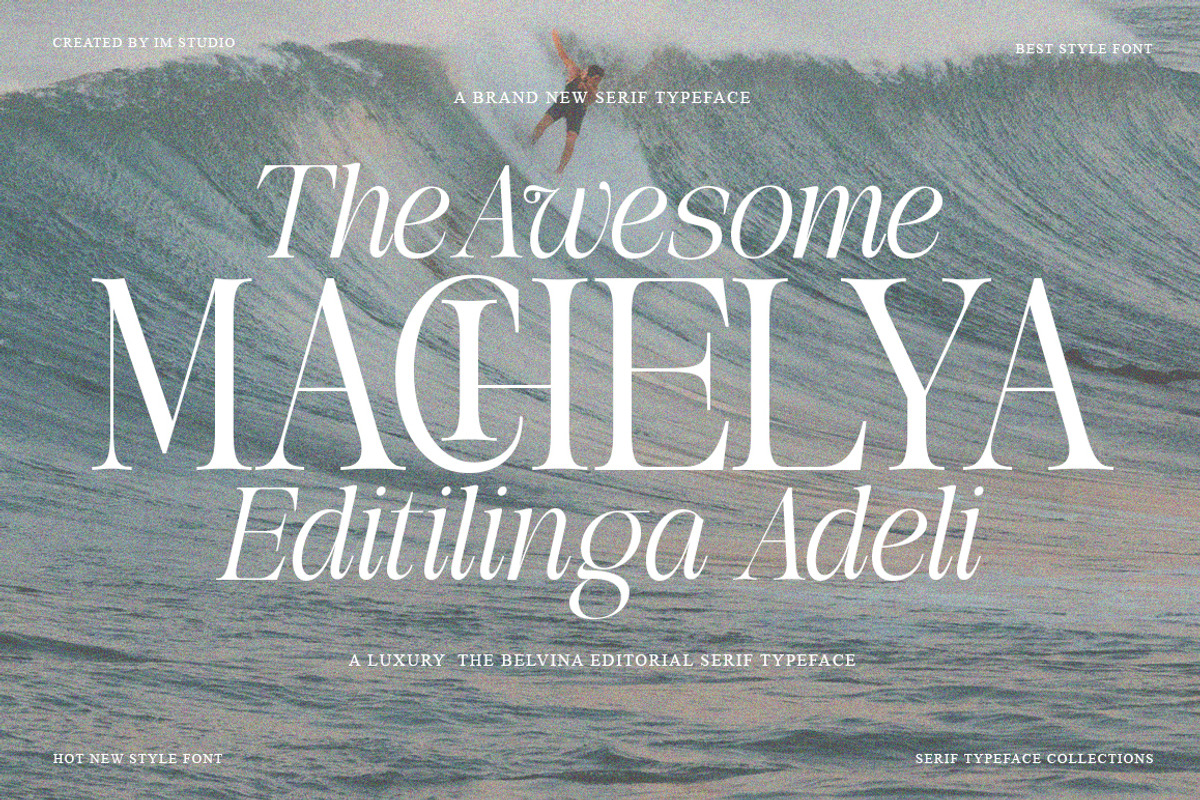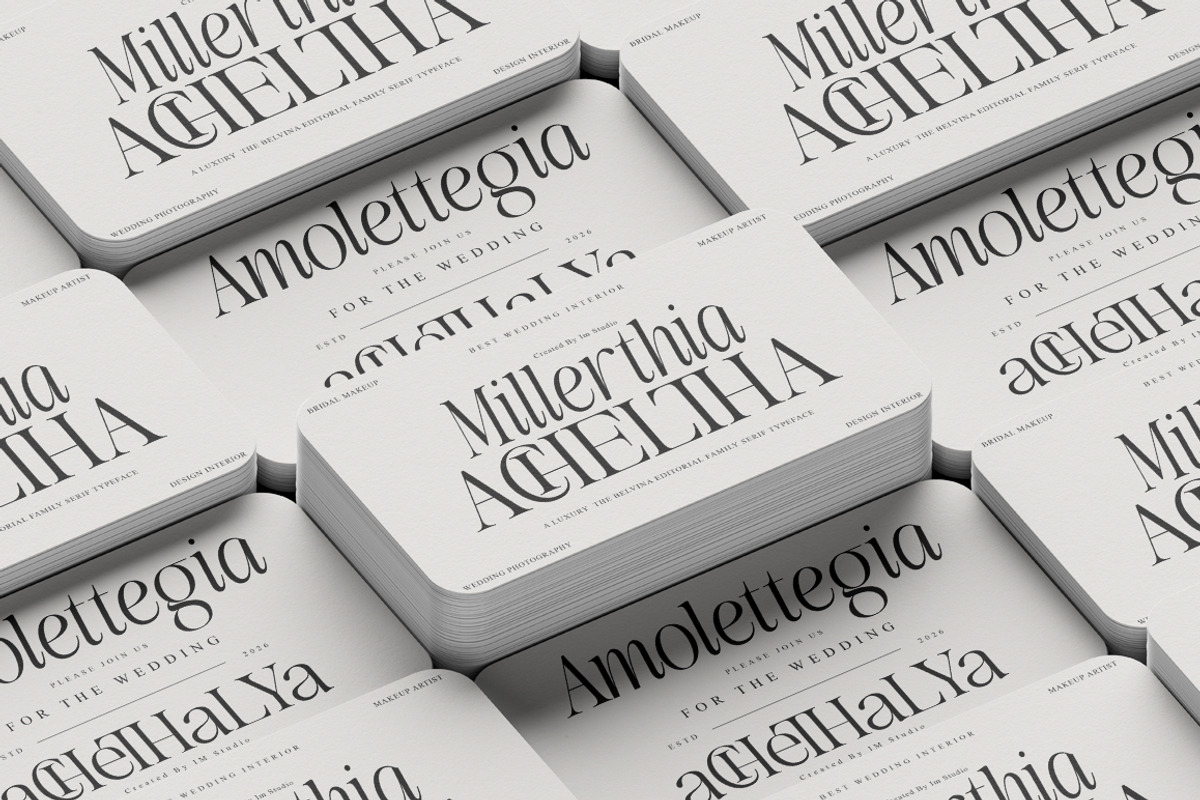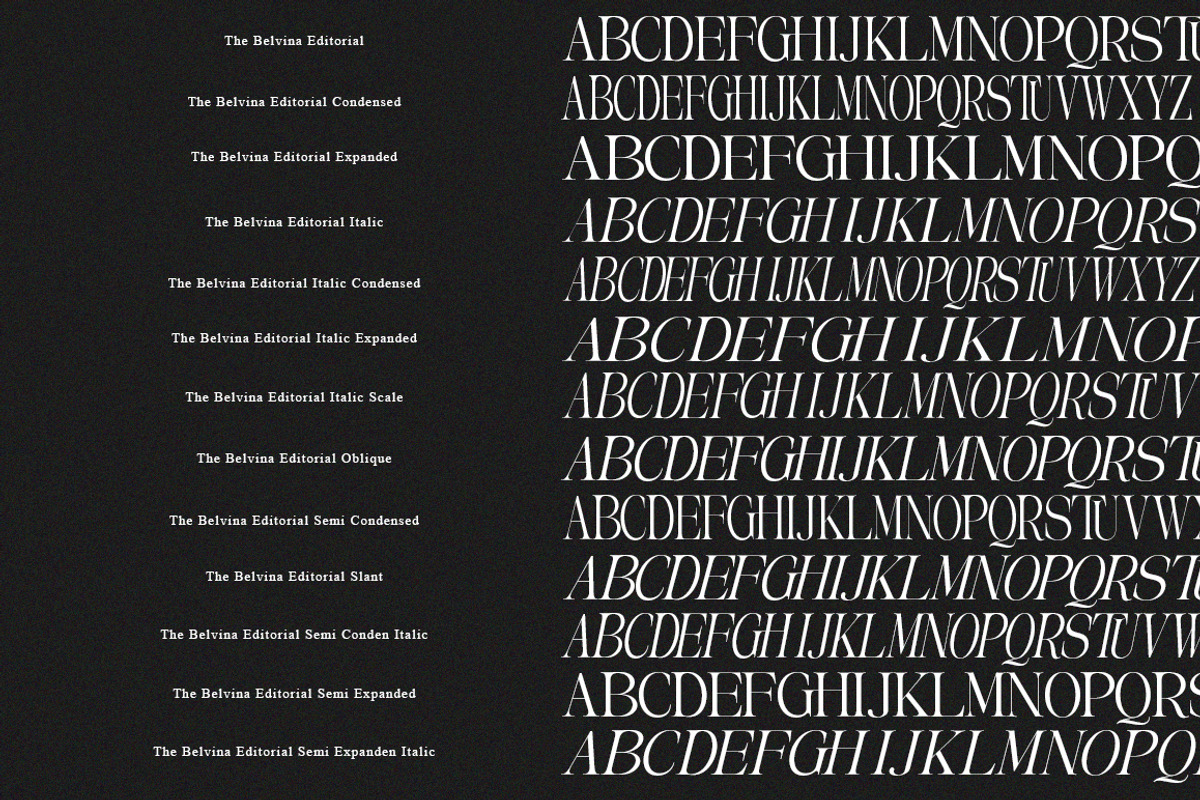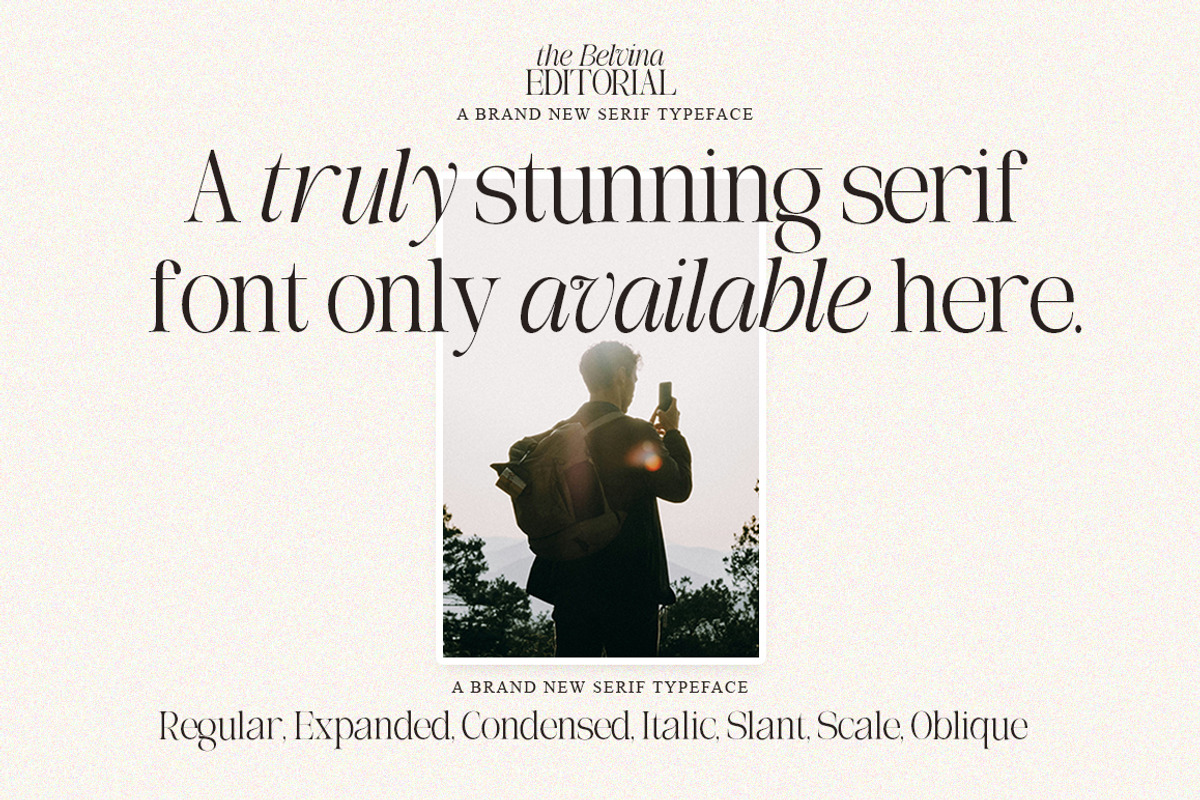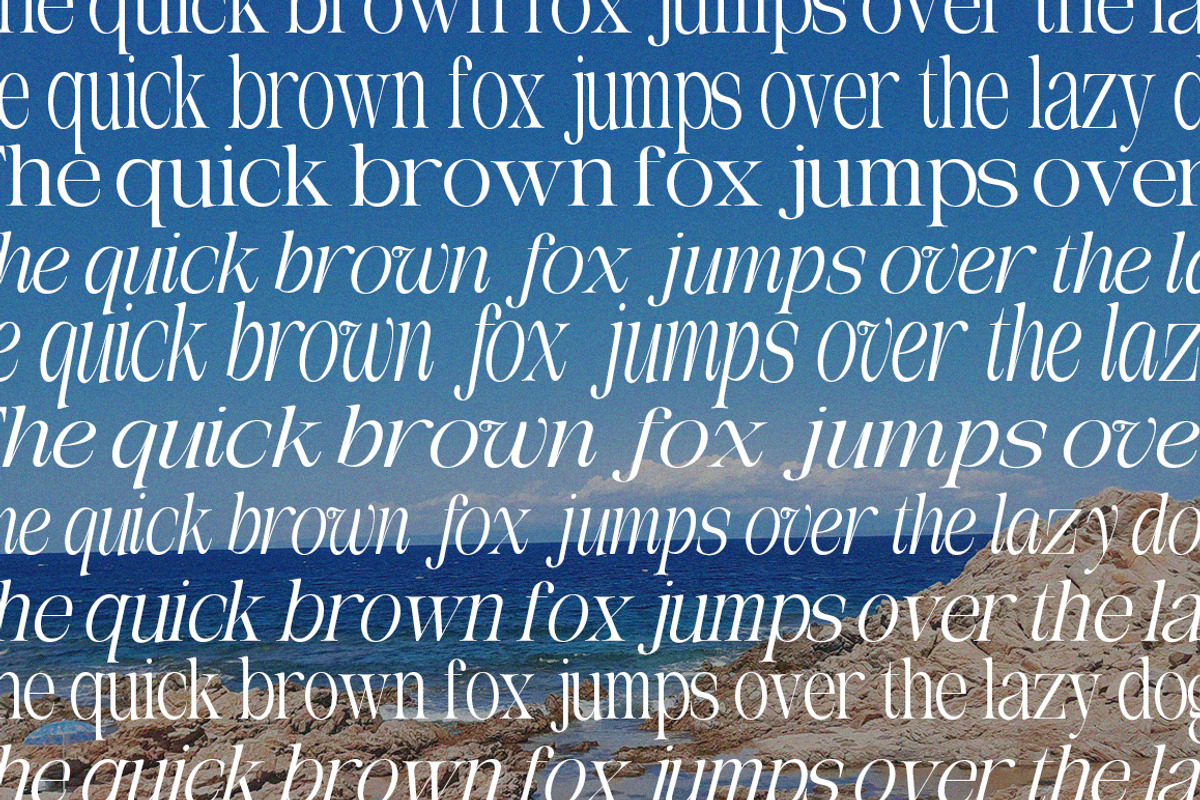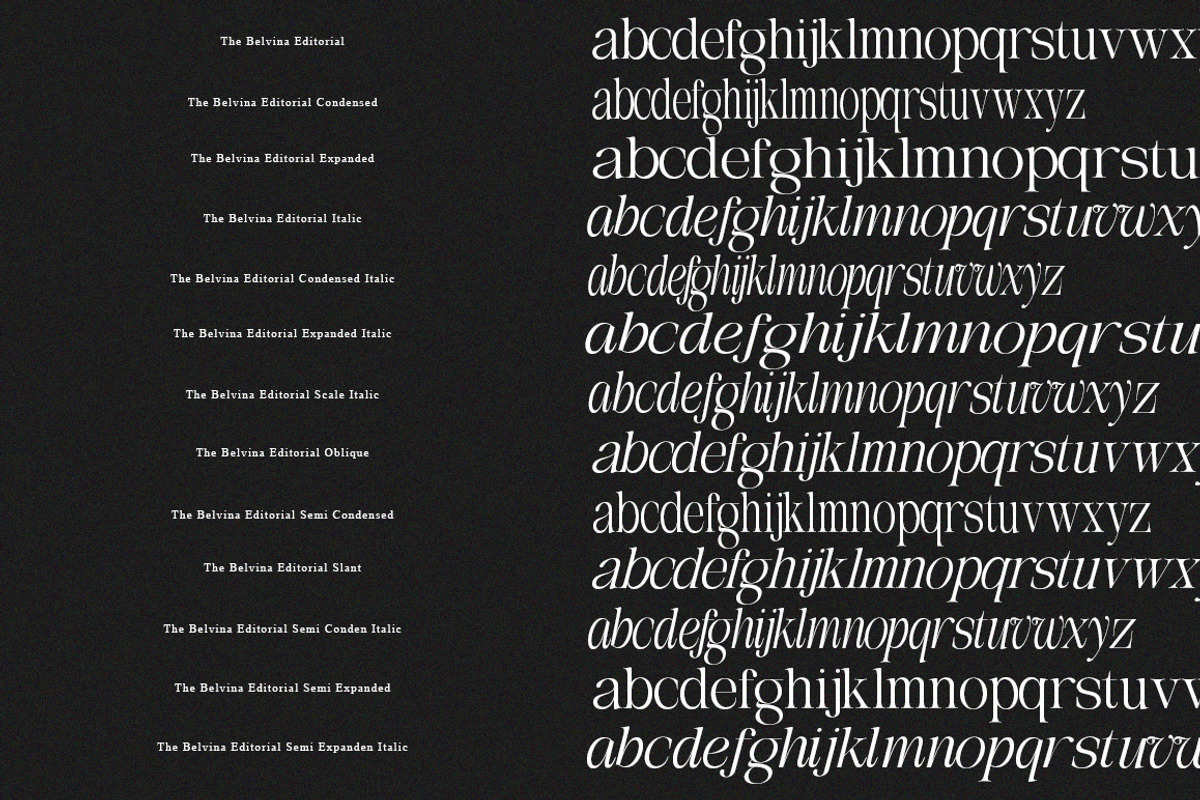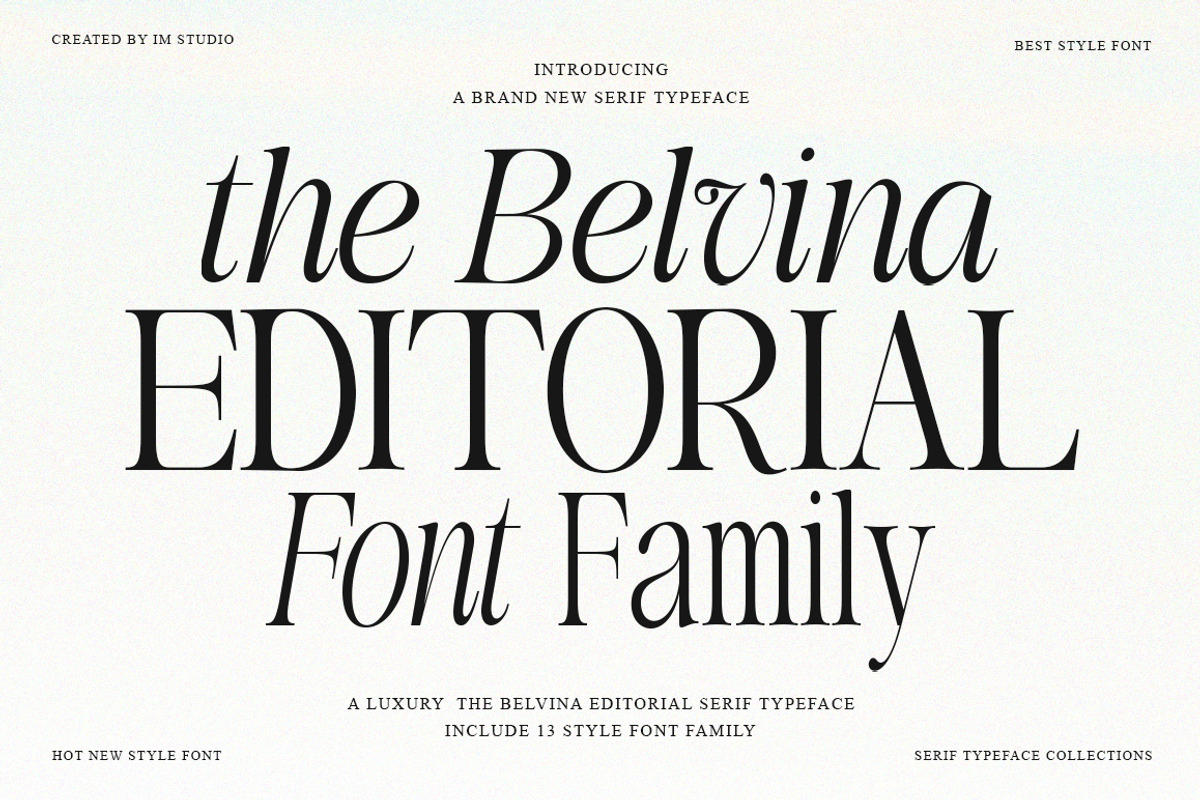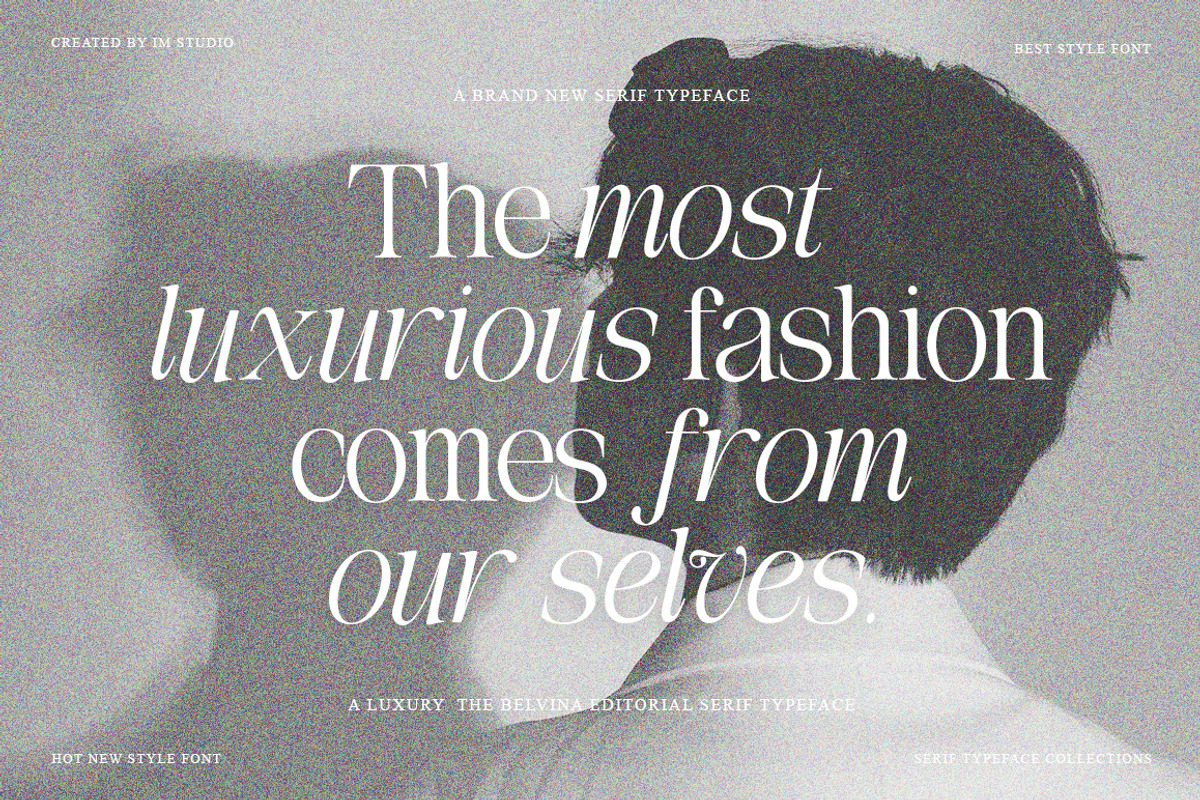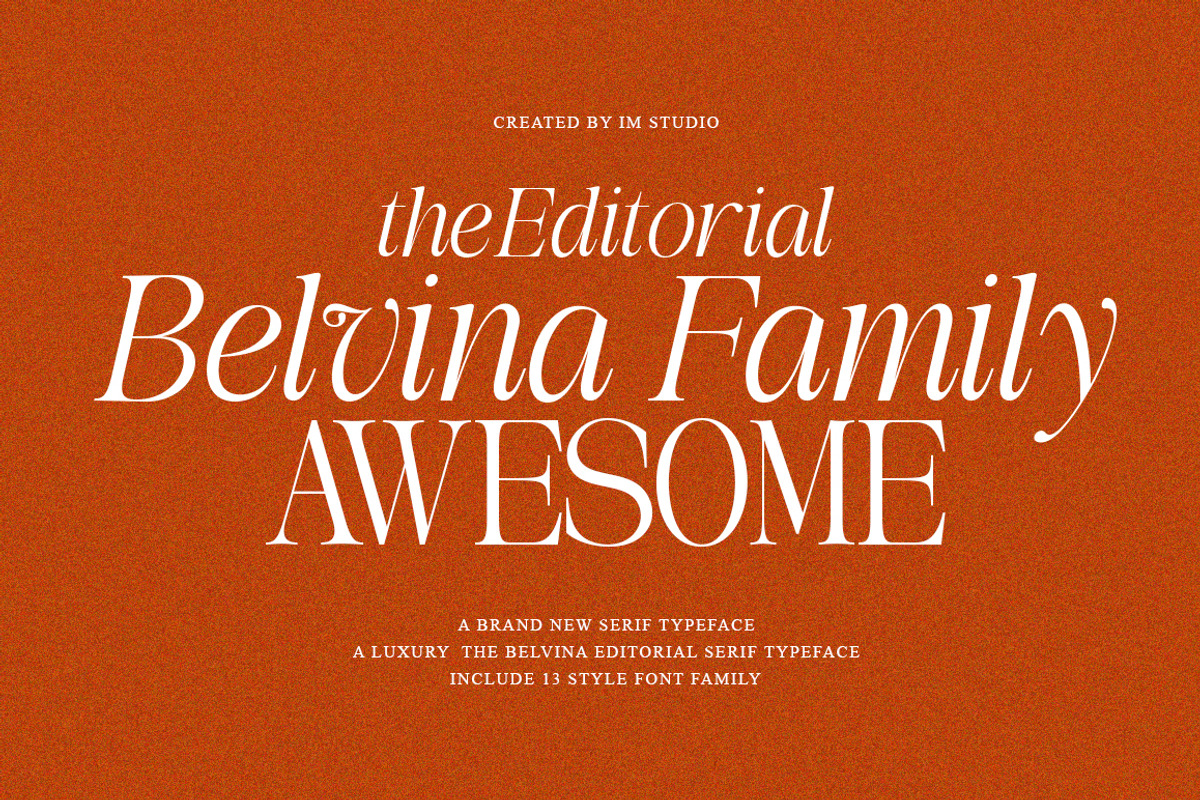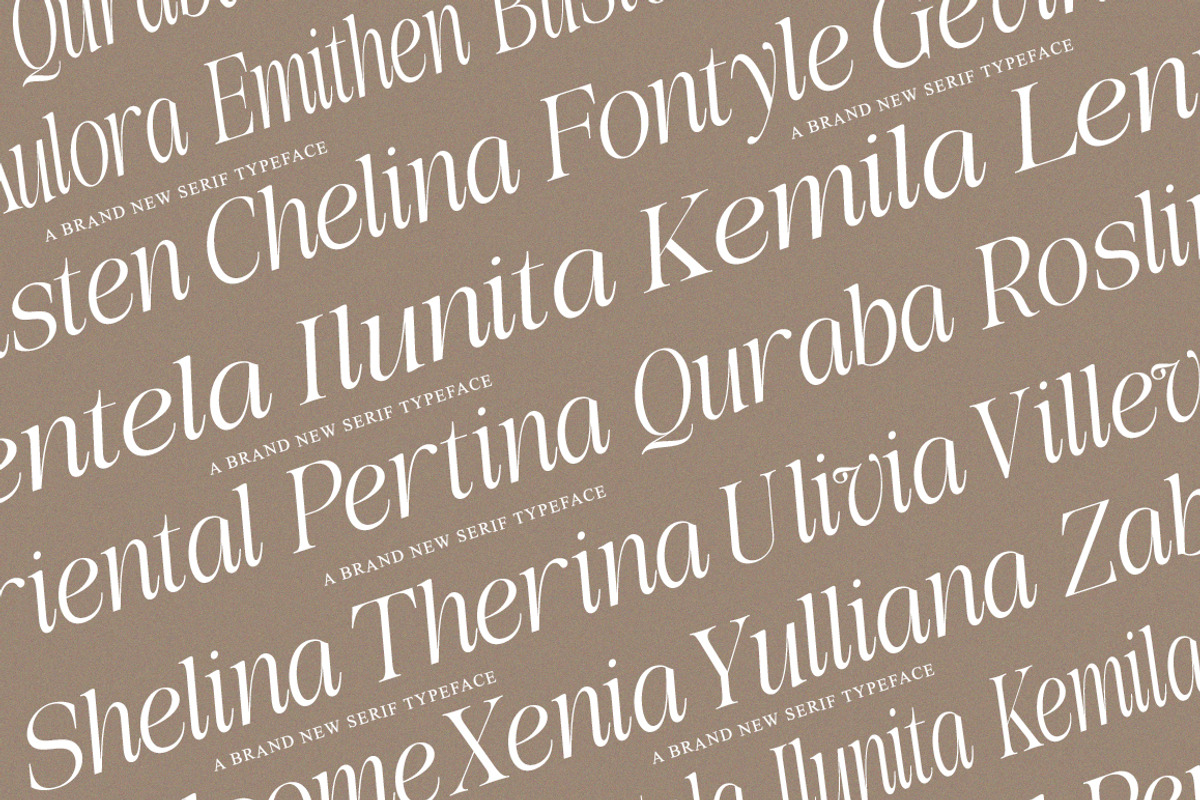
The Belvina Editorial 13 Font Style
The Belvina Editorial | 13 Font Styles – Modern Serif Font Family. Elevate your designs with The Belvina Editorial, the ultimate modern display serif typeface, luxury serif font, and premium display font that delivers timeless elegance with a modern twist. Subtle contrasts and flowing curves create a high-end typographic feel—the perfect serif font family for projects requiring sophisticated fonts, elegant serifs, and stunning luxury typography.
A highly versatile display serif font family for branding fonts, logo serif fonts, fashion show editorial font families, magazine typography fonts, eye-catching packaging, and any creative endeavor requiring a premium serif typography touch.
13 stylish font styles & serif variations for endless shades: Regular, Italic, Condensed, Expanded, Condensed Italic, Expanded Italic, Oblique, Semi Expanded, Semi Condensed Italic, Semi Expanded Italic, Scale, Slant.
Uppercase and lowercase with support for multilingual fonts & international typefaces.
A stunning array of elegant styles for titles, artistic typography fonts, and display headings.
Specially designed for:
Serif fonts for branding and logo design
Editorial fonts and magazine serif fonts
Fashion fonts and luxury fashion typography
Poster fonts and book cover typography
Website fonts, social media fonts, and web serif typography